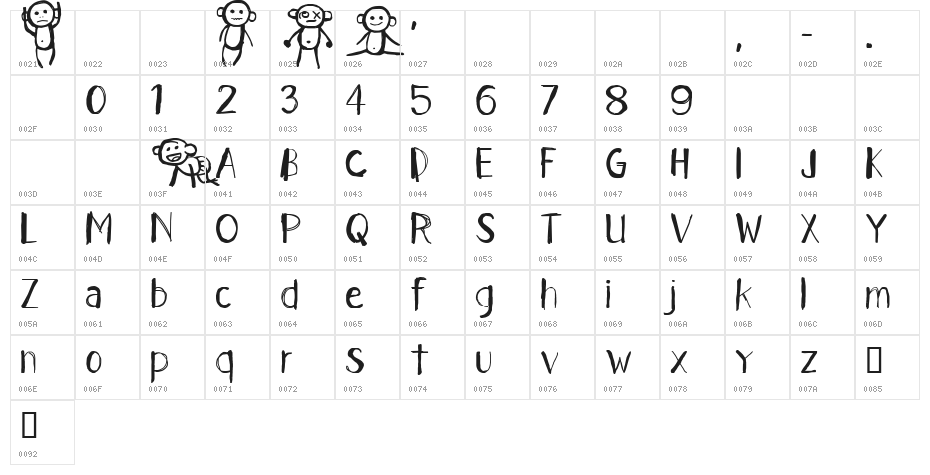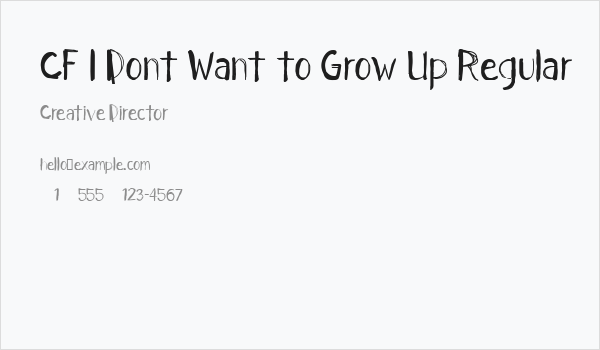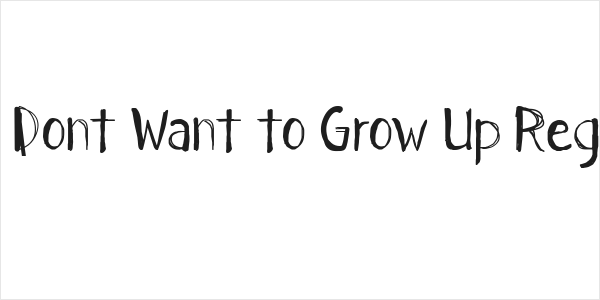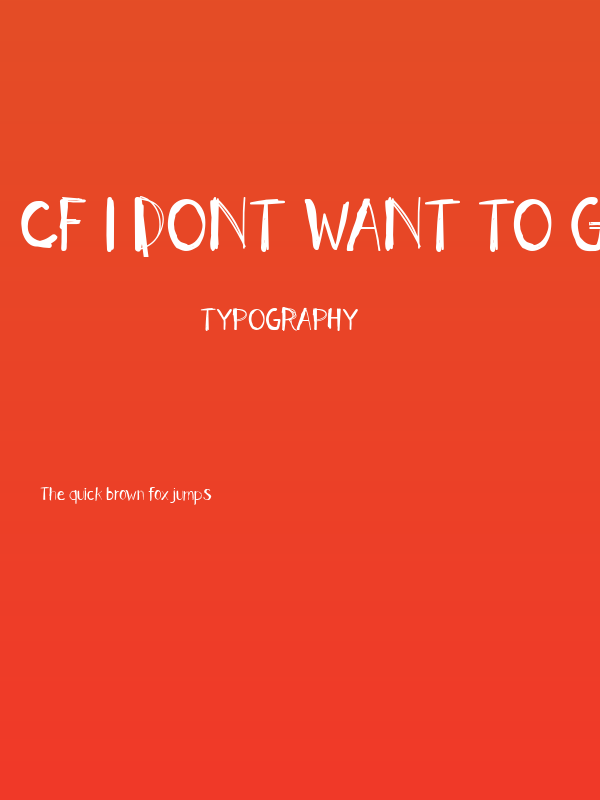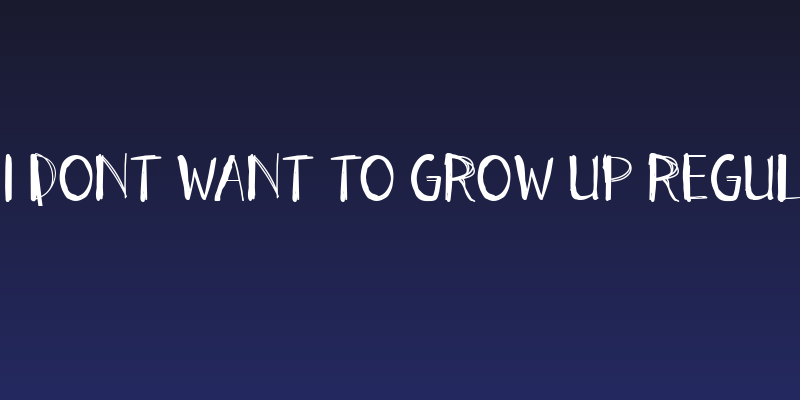
CF I Dont Want to Grow Up Regular Font
CF I Dont Want to Grow Up Regular Description
This playful and whimsical font features a hand-drawn style with uneven strokes and a casual, informal appearance. The characters have a childlike charm, with varying line thicknesses that add to its quirky personality. The uppercase and lowercase letters maintain a consistent style, while the numbers and special characters complement the overall design. The font's irregularities and artistic flair make it stand out, offering a unique and creative touch to any project.
| Proposed Projects | Ideal for children's books, playful branding, casual invitations, and creative posters. |